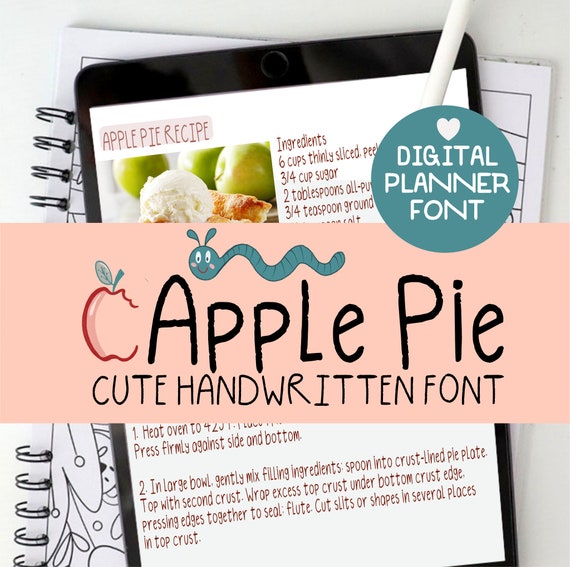
Handwriting font for digital planner, Goodnotes Modern Study Notes, Aesthetic font, Digital Notebook Font, Ipad Writting Font M044
ApplePieis a handwriting font designed for digital planners, Goodnotes, modern study notes, and digital notebooks. It has a unique aesthetic that is perfect for iPad writing and creating digital content. The font is easy to install and use.
Cute Handwritten Font for Digital Notetaking or Digital Planing. This font is called Apple Pie Font and it is awesome for your ipad or computer. You can use it in Goodnotes or Notability Apps for digital planning, journals or your digital recipe book. You will never worry about having ugly handwritten notes on your ipad again. It will always look cute and handwritten.